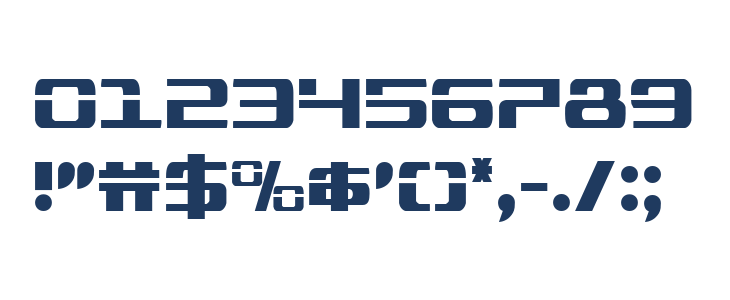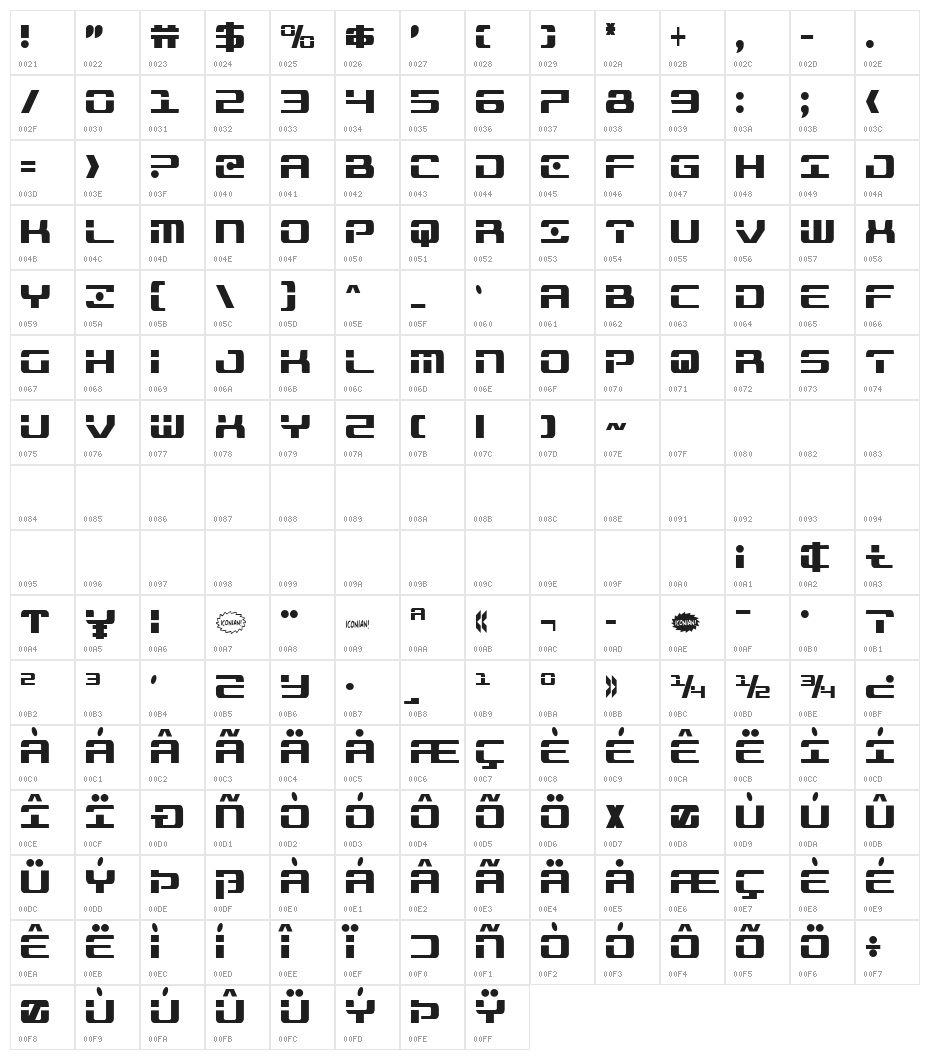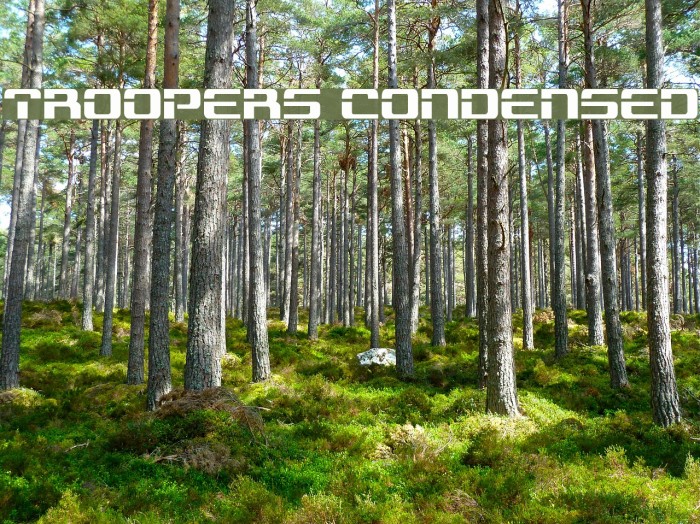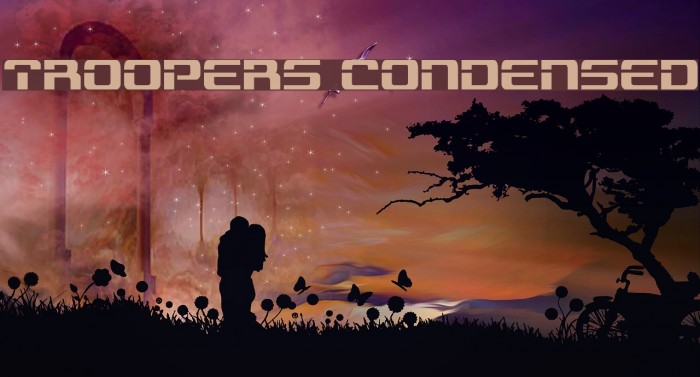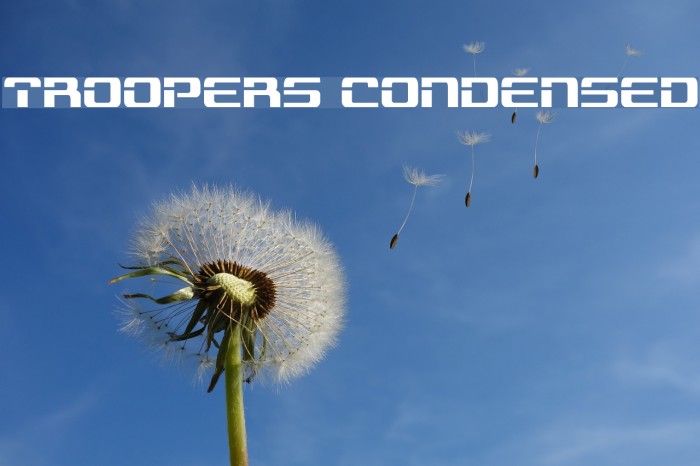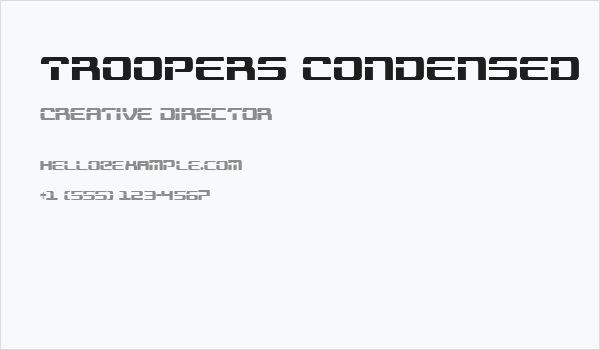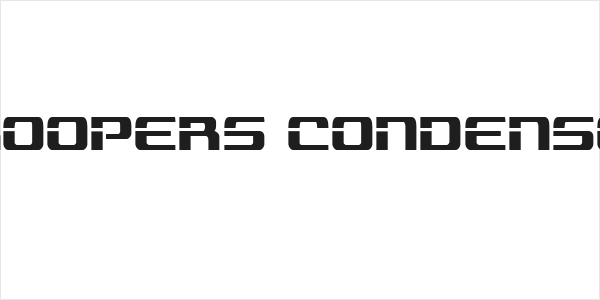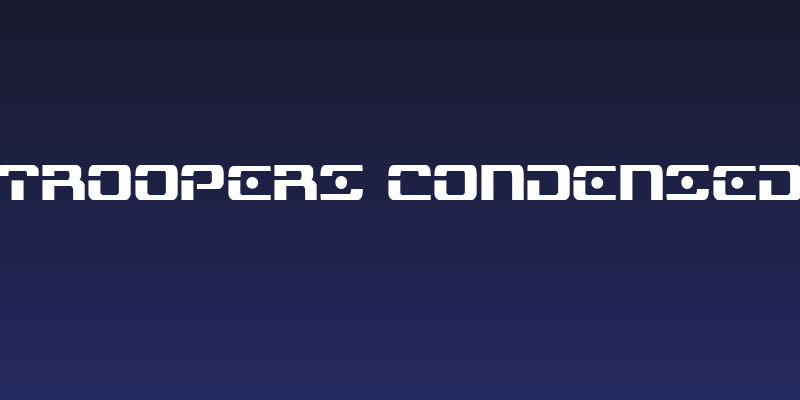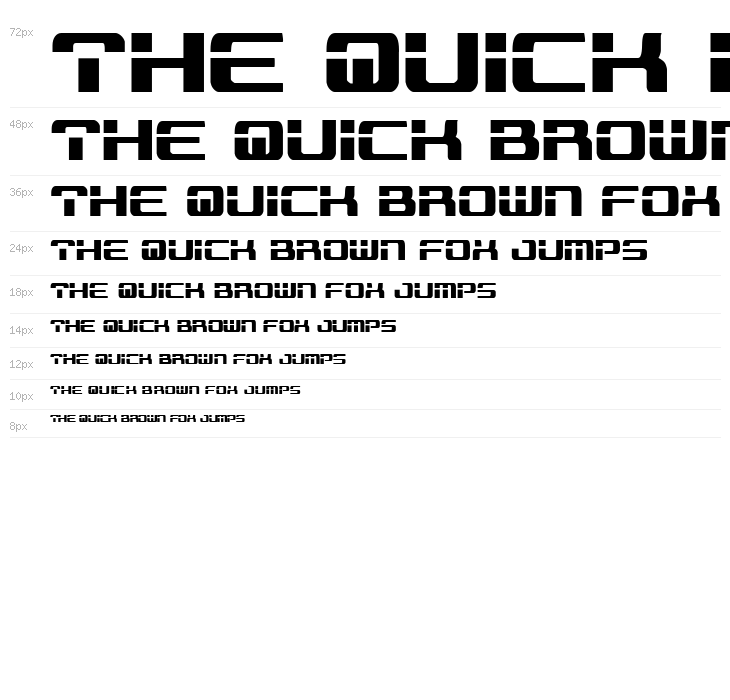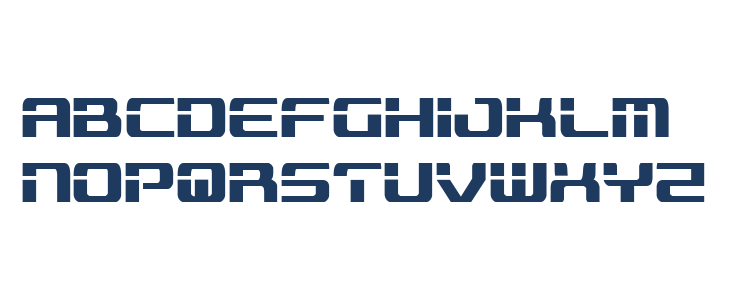
Troopers Condensed Font
Troopers Condensed Description
This font features a bold and futuristic design with a condensed structure, characterized by its geometric shapes and sharp angles. The uppercase and lowercase letters maintain a consistent style, with a strong emphasis on horizontal and vertical lines, creating a sense of uniformity and precision. The numbers and special characters follow the same design principles, ensuring a cohesive look across all elements. The font's unique style makes it stand out, with a modern and tech-inspired aesthetic that is both eye-catching and functional.
| Proposed Projects | Ideal for technology branding, sci-fi movie posters, video game titles, and modern advertising campaigns. |